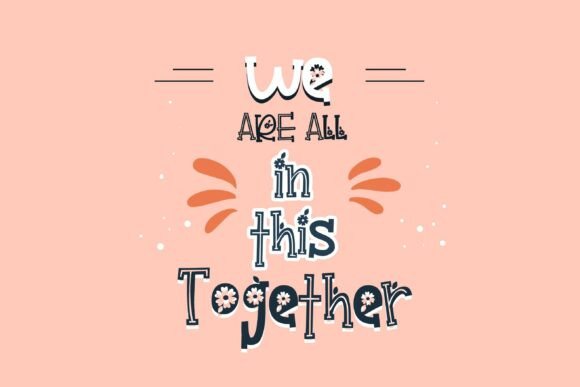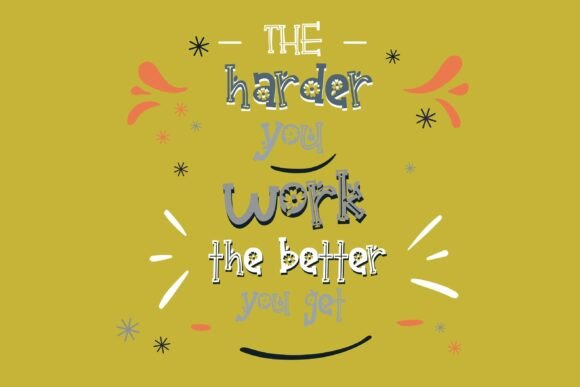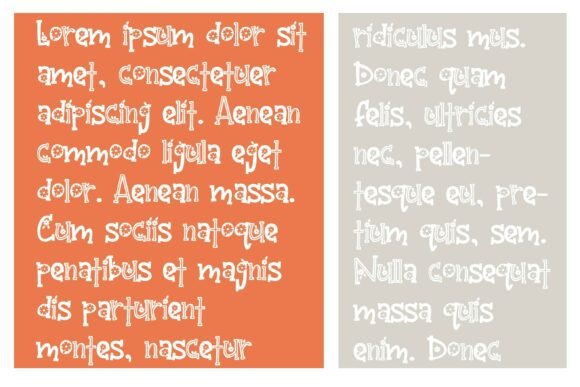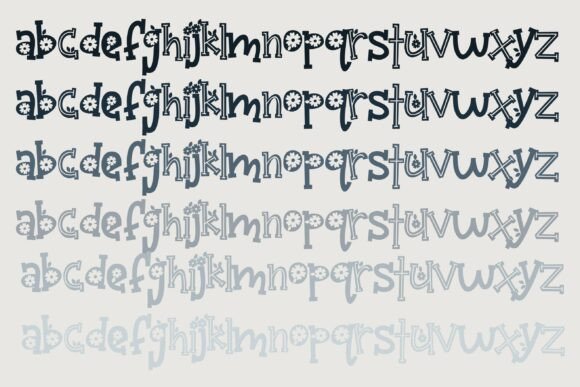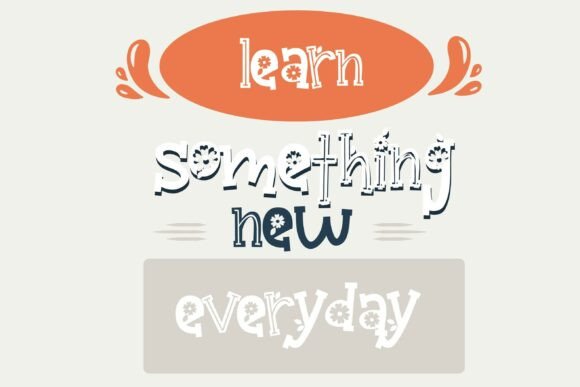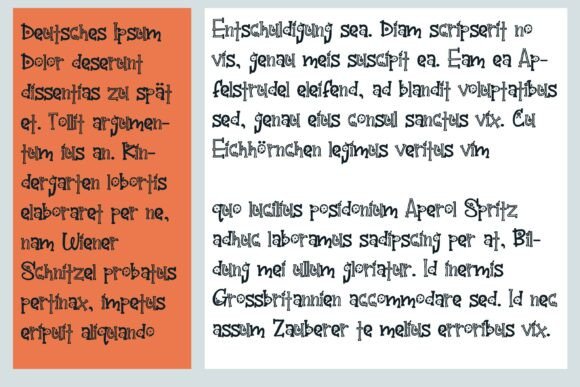
Introduction to Beacoup Bloom Family Font
As you sit at your desk, surrounded by scattered papers and half-finished design projects, you stumble upon the perfect font to elevate your creative vision – Beacoup Bloom Family Font. Its whimsical, handcrafted feel transports you to a lush garden, where flowers bloom in every direction, and type comes alive. This unique font is more than just a design resource; it’s a key to unlocking the secrets of visual storytelling.
With its sturdy stems and integrated floral illustrations, Beacoup Bloom Family Font offers a refreshing alternative to traditional serif fonts. Its transparent background and high-quality design make it perfect for a variety of creative projects, from DIY sticker design to artisanal jam labels. Whether you’re a seasoned designer or a newcomer to the world of typography, Beacoup Bloom Family Font is a valuable addition to your design toolkit.
Key Features of Beacoup Bloom Family Font
- High-quality, hand-drawn design suitable for various creative projects, such as digital art, print materials, and branding.
- Beacoup Bloom Family Font includes multiple styles and weights, providing a comprehensive design resource for designers and artists.
- Transparent background option, allowing for easy integration with various design elements and backgrounds.
- Comes in 4 different font styles, including Regular, Italic, Bold, and Bold Italic, with each style available in 5 different font sizes.
Honest Review: Beacoup Bloom Family Font
As a designer, I’m always on the lookout for high-quality design resources to elevate my creative projects. The Beacoup Bloom Family Font is one such resource that caught my attention. In this review, I’ll share my honest thoughts on this font.
What works well: ✨ The Beacoup Bloom Family Font is a beautiful, hand-drawn font that adds a touch of whimsy to any design. It’s perfect for creating invitations, social media graphics, or any other creative project that requires a playful touch. The font is also highly customizable, making it easy to adjust the size, color, and style to suit your needs.
- High-quality design with a transparent background for seamless integration
- Perfect for creative projects that require a playful touch
Limitations: ⚠️ While the Beacoup Bloom Family Font is a great resource, it may not be suitable for all design projects. The font’s playful style may not be suitable for formal or professional designs. Additionally, the font may not be as versatile as some other design resources.
Overall, I’m impressed with the Beacoup Bloom Family Font. Its high-quality design and customizable features make it a valuable addition to any designer’s toolkit. If you’re looking for a fun and playful font to add some personality to your designs, I’d definitely recommend giving this font a try.
Presenting with Beacoup Bloom Family Font in PowerPoint/Word
When presenting your work or creating business reports, the Beacoup Bloom Family Font can add a professional touch. Simply download the font, install it on your computer, and use it in PowerPoint or Word. This font is perfect for creating presentations, resumes, and other documents that require a high level of professionalism.
Common Use Cases and Tips
The Beacoup Bloom Family Font is suitable for various use cases, including wedding invitations, baby showers, and corporate branding. To get the most out of this font, experiment with different font sizes, colors, and combinations to create unique and eye-catching designs.
What is the recommended usage for the Beacoup Bloom Family Font?
The Beacoup Bloom Family Font is suitable for a wide range of applications, including logos, branding, packaging, and digital designs. It’s an excellent choice for designers looking to add a touch of elegance and sophistication to their creative project. With its high-quality design and transparent background, this font is sure to elevate your design to the next level.